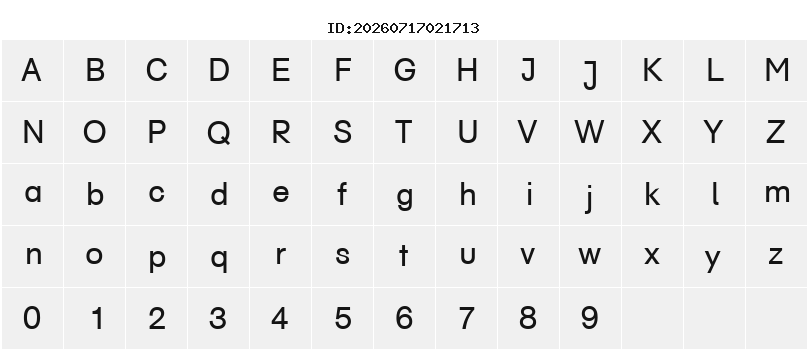
AG Schoolbook.ttf is a modern, elegant sans-serif font designed for ultimate readability and visual harmony. Perfect for branding, headlines, web design, and print materials.